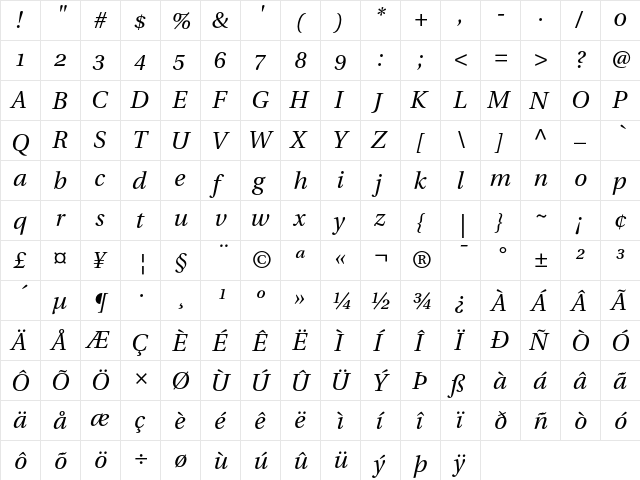
Utopia Italic with Oldstyle Figures
| Style | Italic with Oldstyle Figures |
Design Context for Utopia Typeface
Utopia carries the refined structure of traditional serif typography, with bracketed terminals and considered proportions that communicate credibility and craft. The dynamic lean of this cut emphasises speed and emphasis in any layout.
Pro Tip: Set Utopia with slightly loose tracking in headlines to let each letterform's detail read clearly at display sizes.